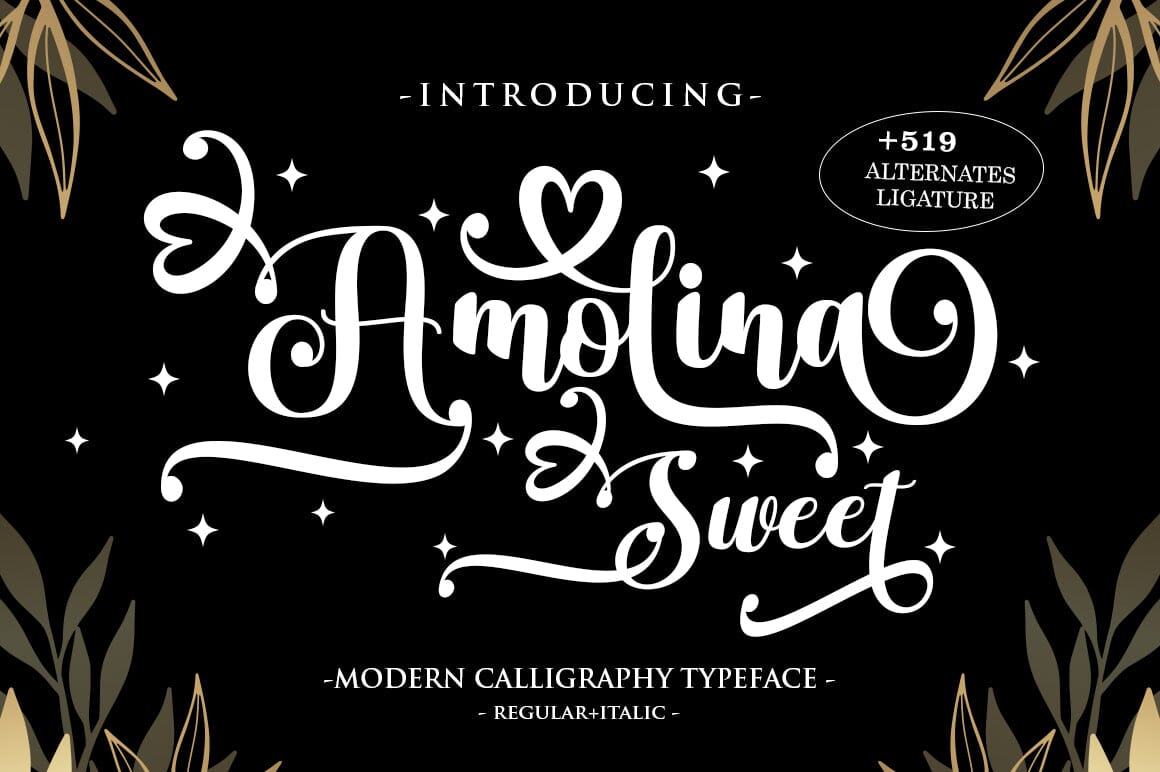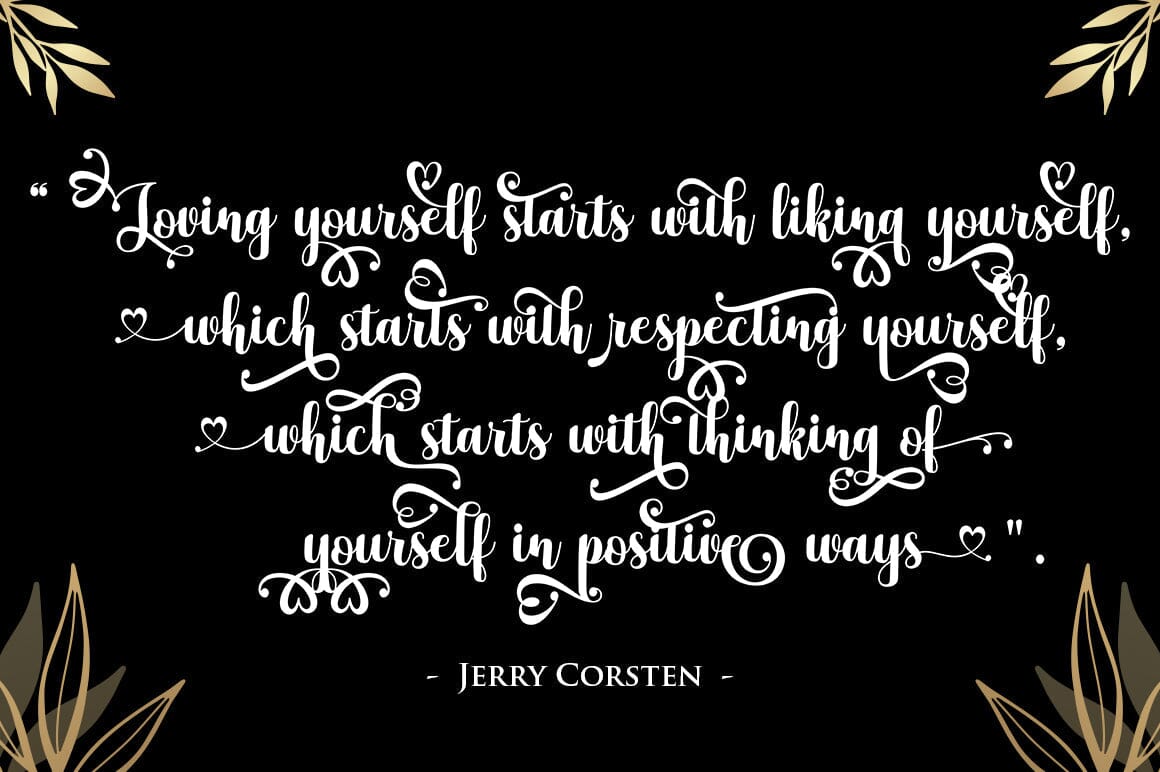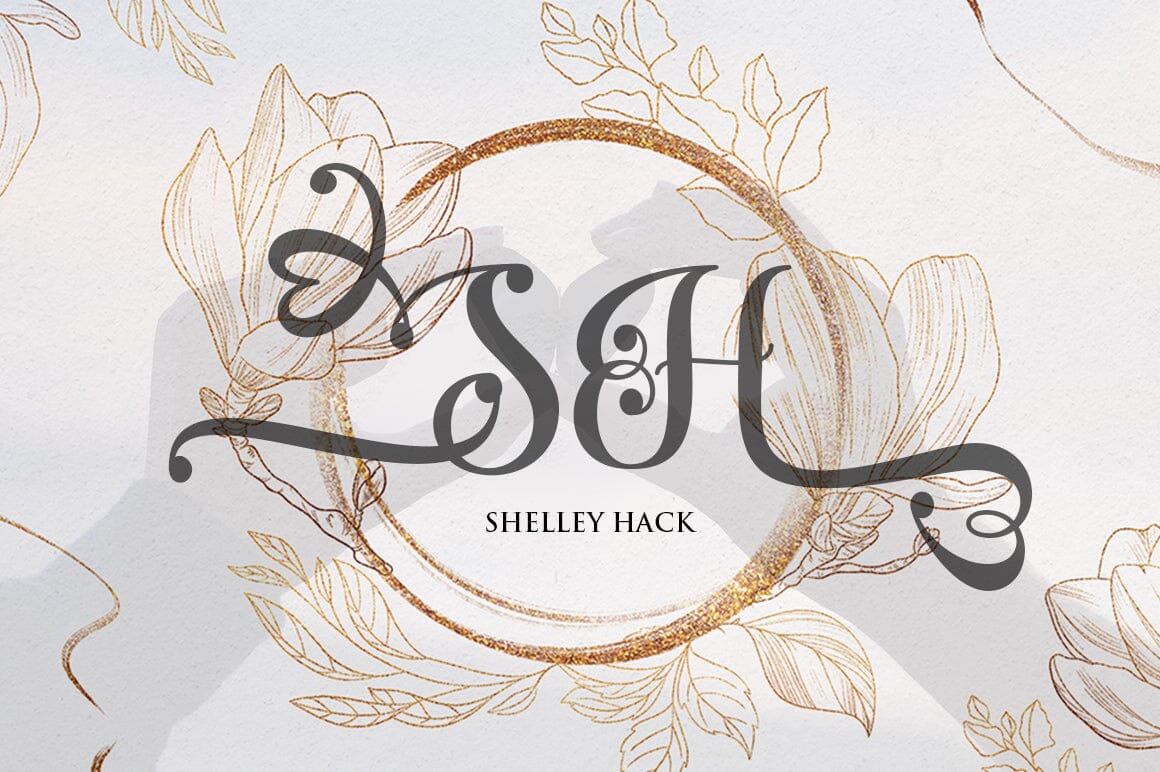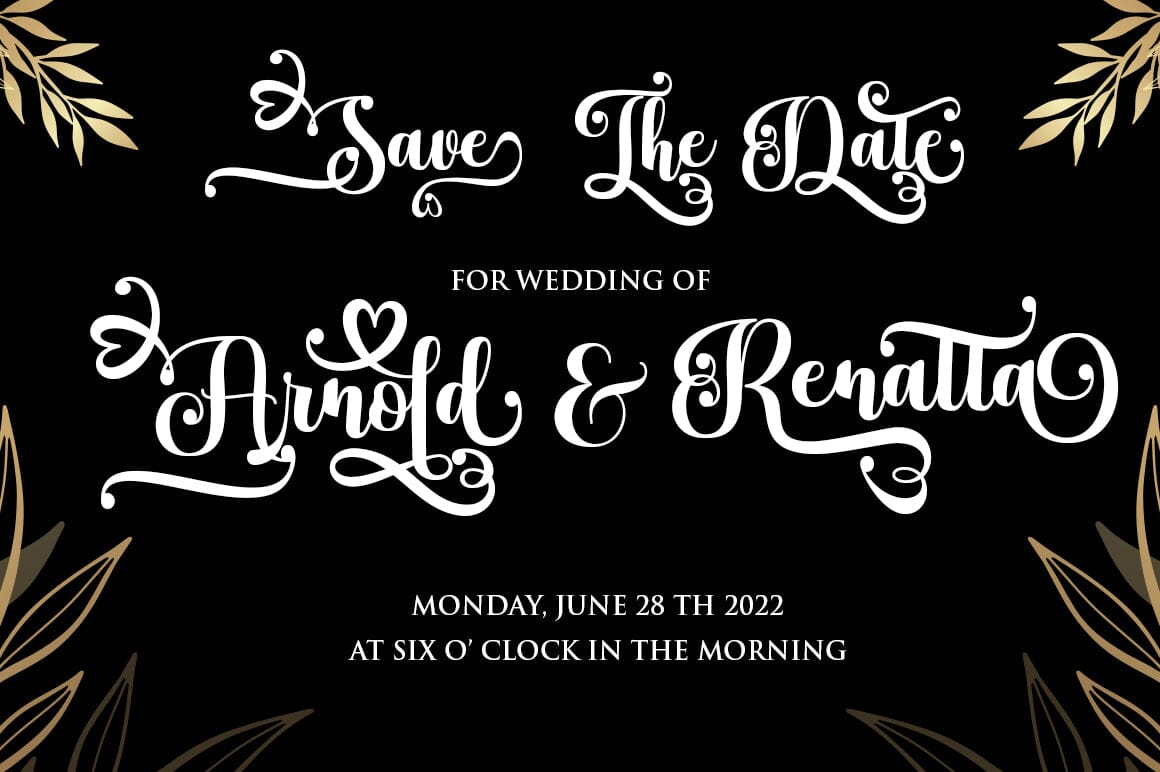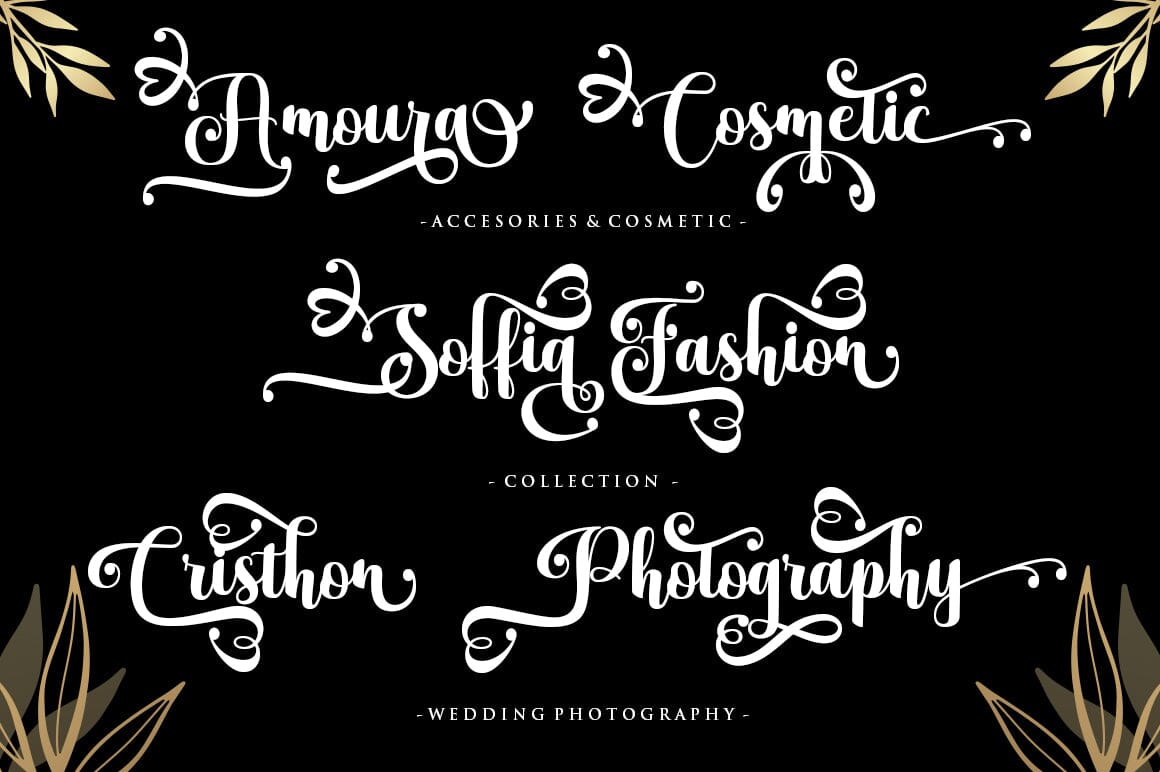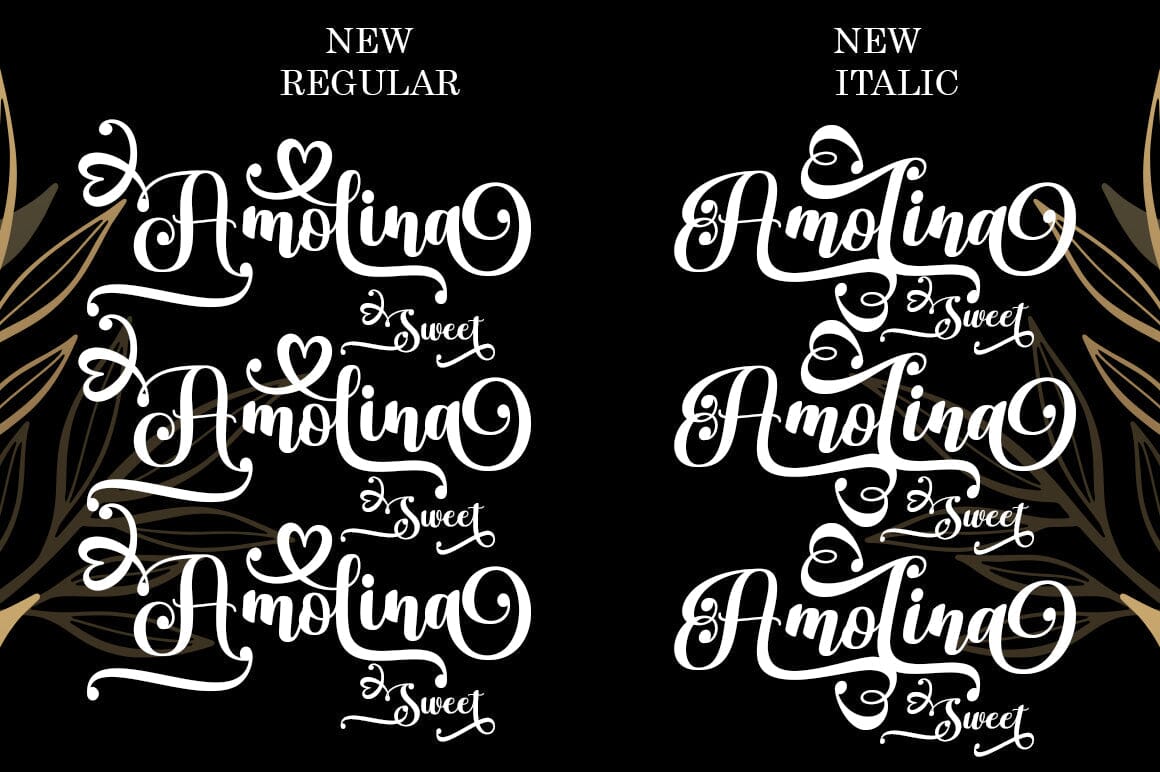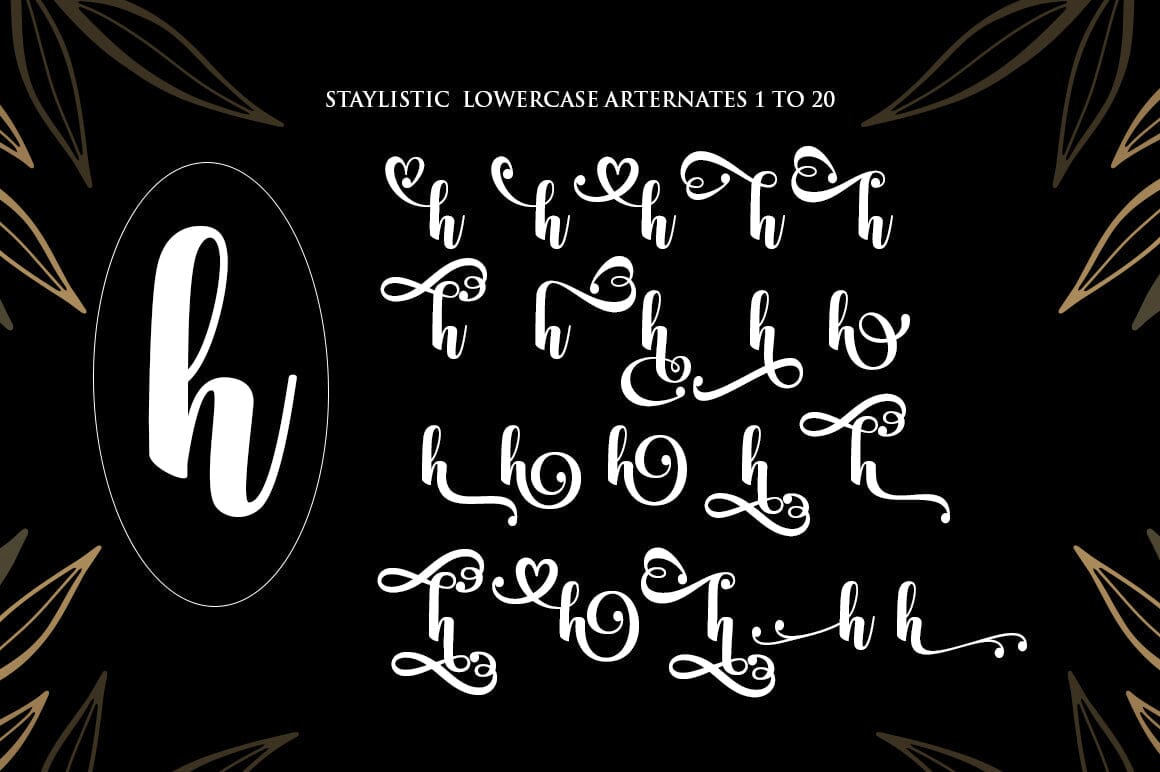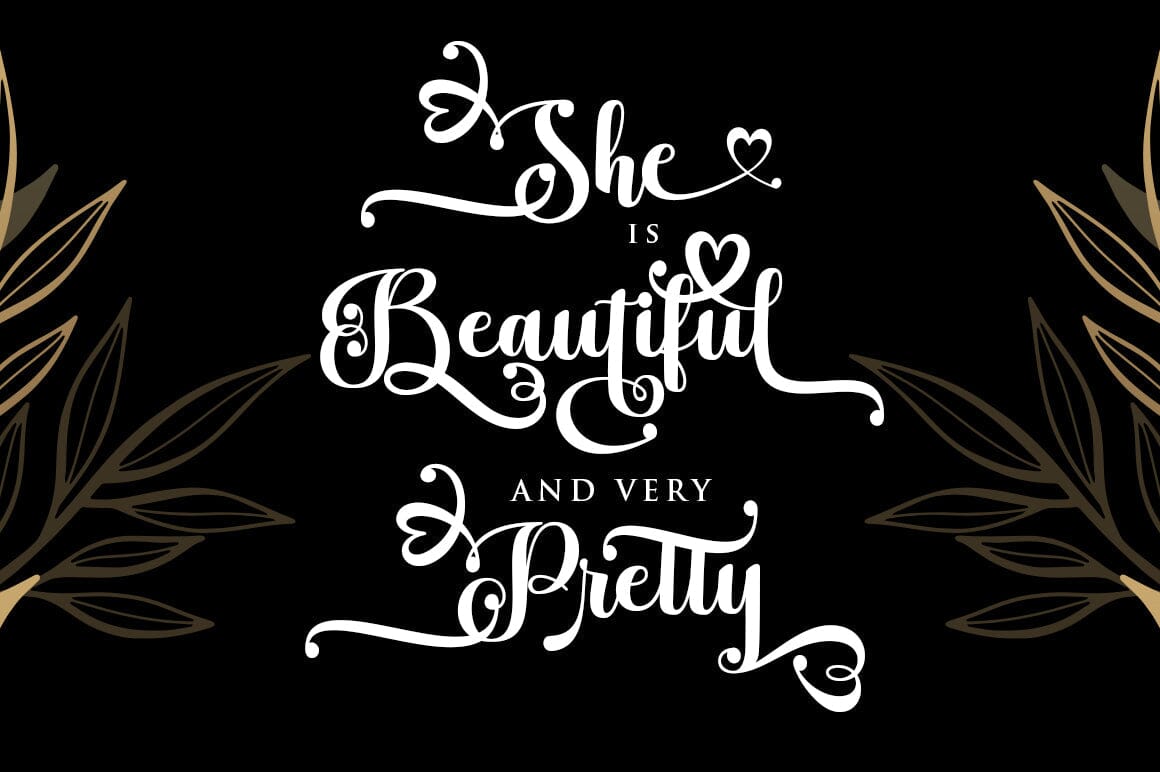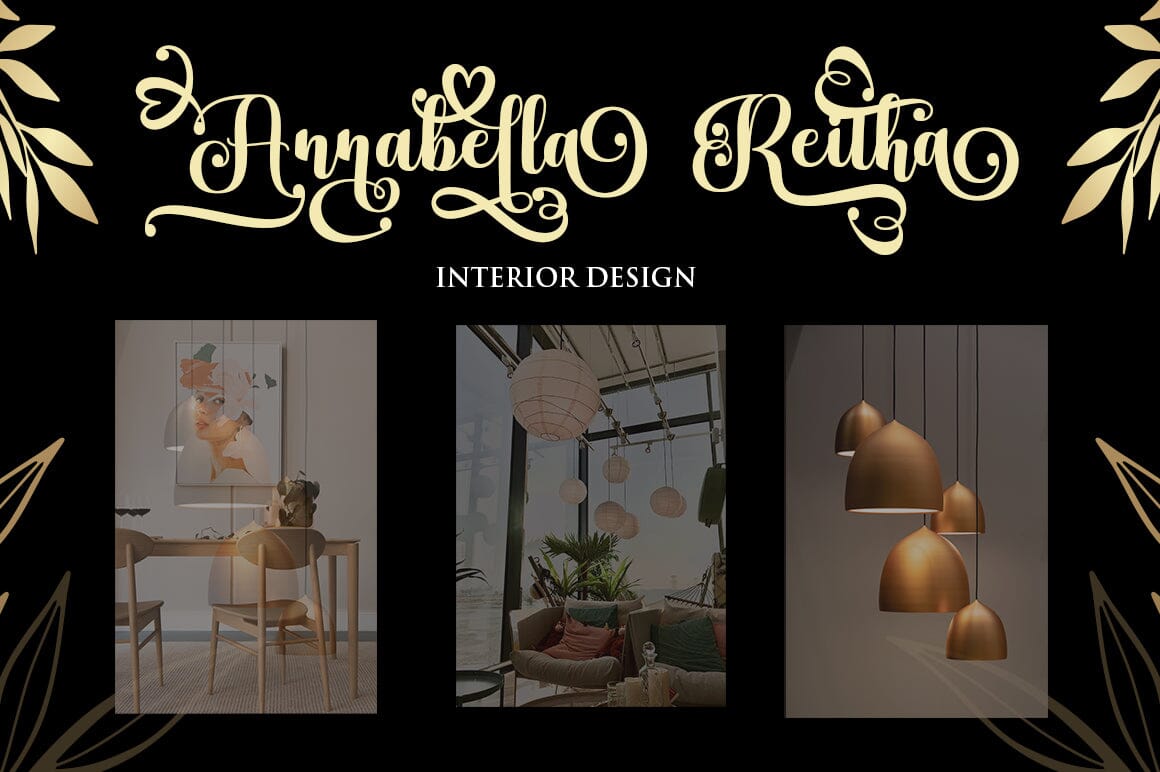
Amolina Sweet
About Amolina Sweet
Introducing the elegant calligraphic font Amolina Sweet. Hi Designer, Come again to complete your script font collection…! Amolina Sweet is a classic calligraphy font. This is a classic thin font with an italic style. Here you will get beautiful classic fonts. This font is available in several modern swirls that can make your work look elegant, sweet and flawless. With this style, this font would be perfect for logos, branding projects, homeware designs, product packaging, mugs, quotes, posters, shopping bags, logos, t-shirts, book covers, business cards, invitation cards, greeting cards, and more. all your other beautiful projects. Amolina Sweet has 729+ glyphs and 511 alternate characters, including multiple language support. You can use this font for your work very easily. Because there are many features in it. Contains a complete set of upper and lower case letters, punctuation marks, numbers and multilingual support. This font also includes several ligatures and alternative styles. Stylistic Set For those of you who have software that is capable of working with OpenType (Corel Draw / Photoshop / Illustrator / InDesign).